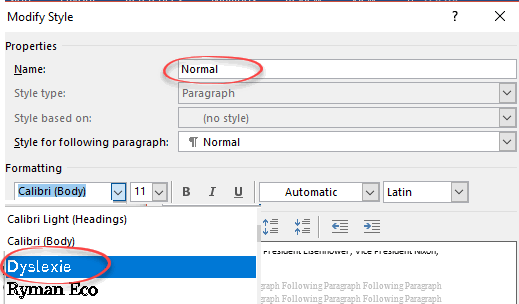
Dyslexie is a special font that’s easier for dyslexic people to read than standard type. It’s free for personal use and easy to include in Microsoft Word, Excel or PowerPoint for Windows or Mac.
The font is specially designed, making it easier for the eye/brain to distinguish similar letters.
For example, the slight incline reduces the confusion between b and d
Or varying heights to make v and w clearer.
For all that, Dyslexie is still quite readable by anyone. It might look a little odd or askew, that’s all.
Using Dyslexie
Dyslexie is just like any other font but it’s special nature means you may not want to use it as a regular font. Rather, apply dyslexie to make a secondary version of the original document,
For example, a regular exam paper or class reading can have a few copies using Dyslexie for those that need it.